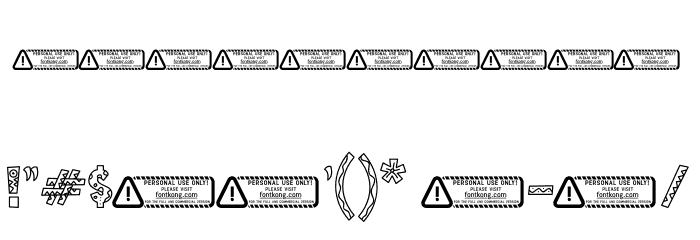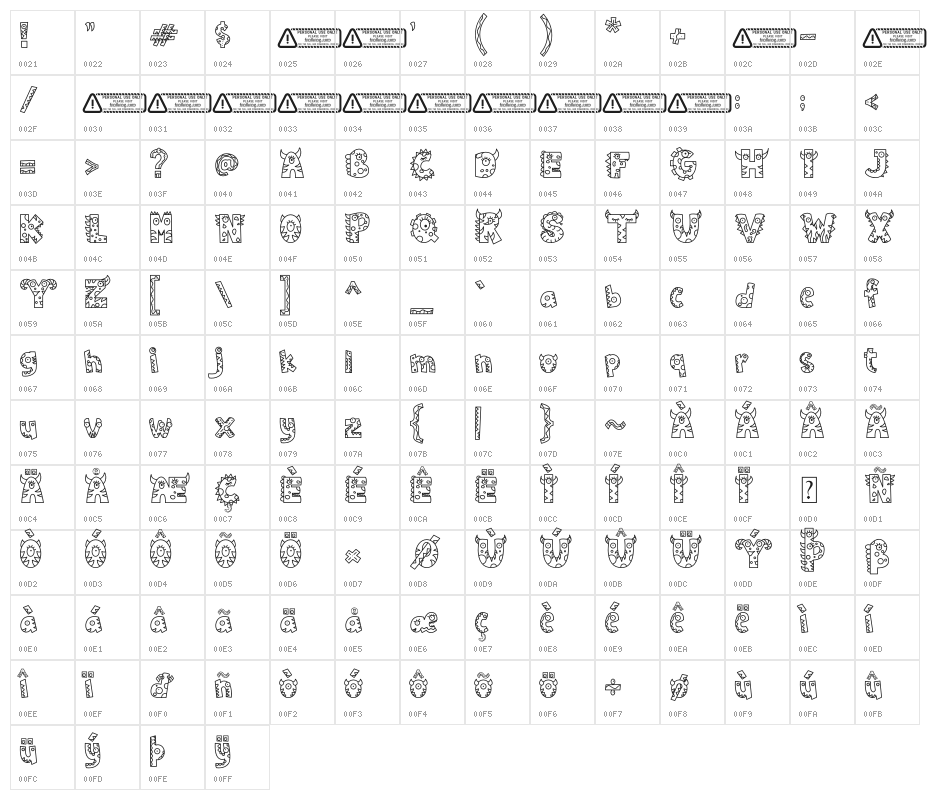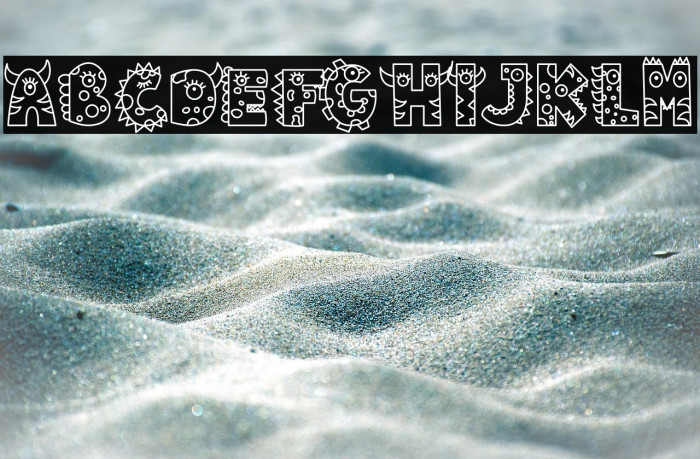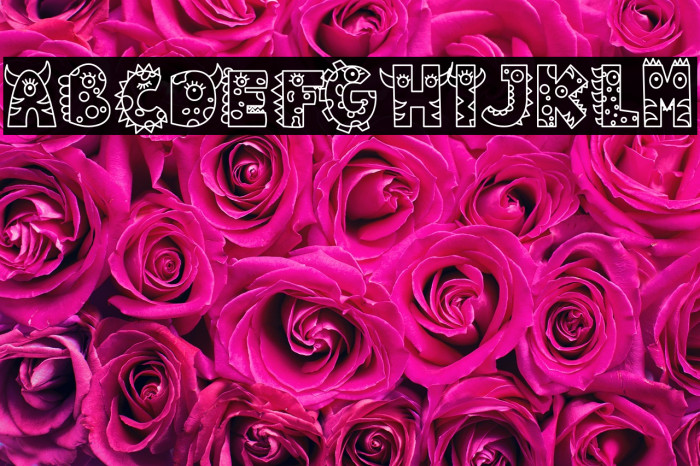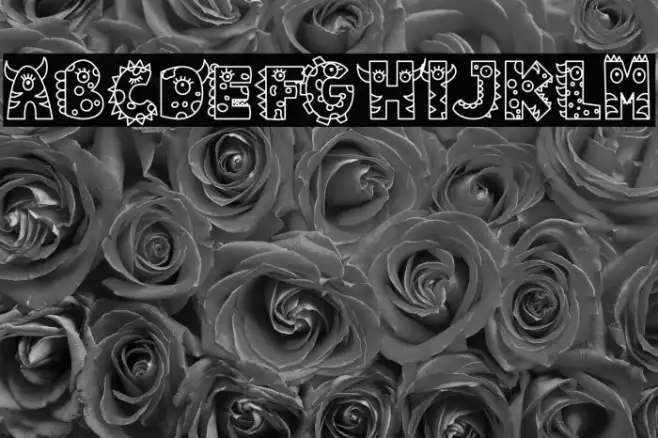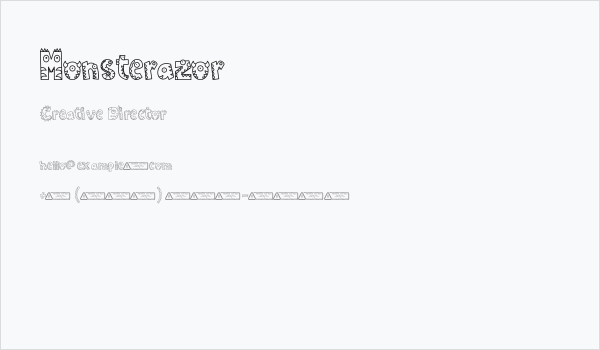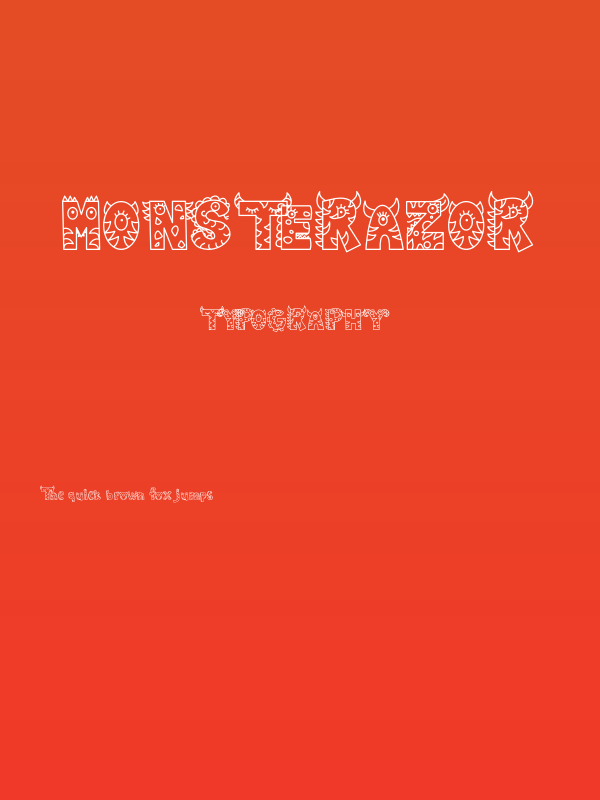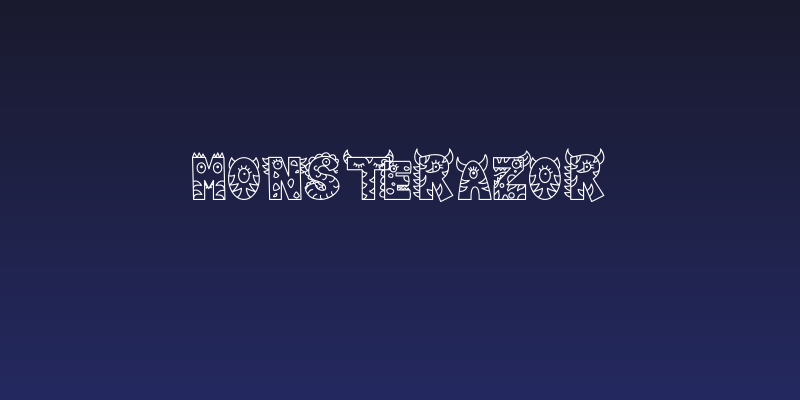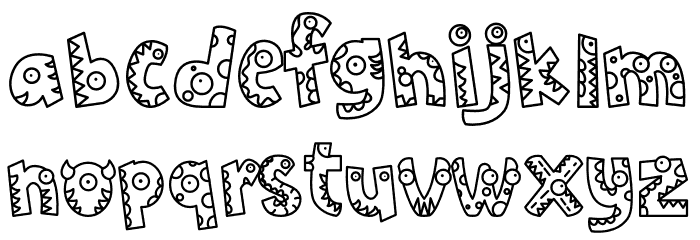
Monsterazor Font
Monsterazor Description
This playful and whimsical font features a monster-themed design, with each character adorned with quirky elements like eyes, teeth, and scales. The uppercase and lowercase letters are creatively crafted to resemble cartoonish monsters, making them perfect for fun and engaging designs. The font includes a full set of uppercase and lowercase letters, numbers, and a variety of special characters, each maintaining the monster motif. The bold outlines and intricate details add to its decorative appeal, making it stand out in any project.
MONSTERAZOR UPPERCASE
MONSTERAZOR LOWERCASE
MONSTERAZOR OTHER CHARS
| Overall Style | Playful, Whimsical, Decorative |
| Proposed Projects | Ideal for children's books, Halloween-themed projects, party invitations, and playful branding. |